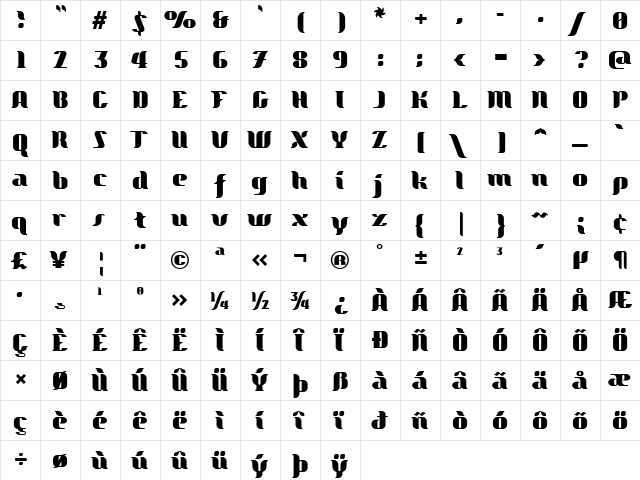
Flowmotion Heavy
| Foundry | TypeFaith*fonts, Leon Hulst |
| Designer | Leon Hulst for TypeFaith*fonts [WAT ontwerpers] |
Design Context for Flowmotion Typeface
Flowmotion is a composed and adaptable typeface that performs quietly and consistently across a wide range of design contexts.